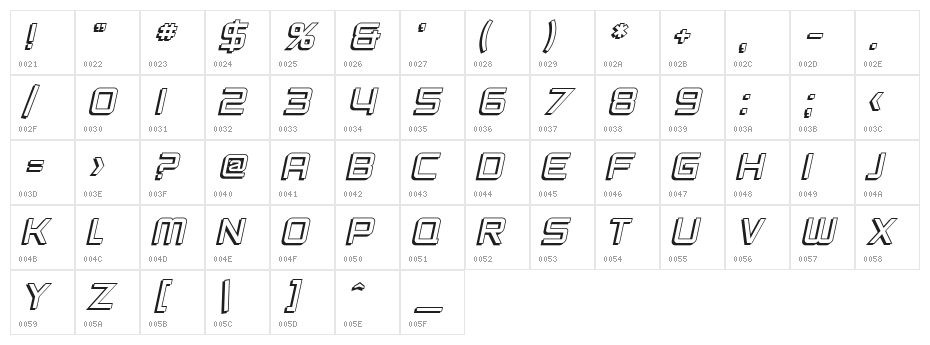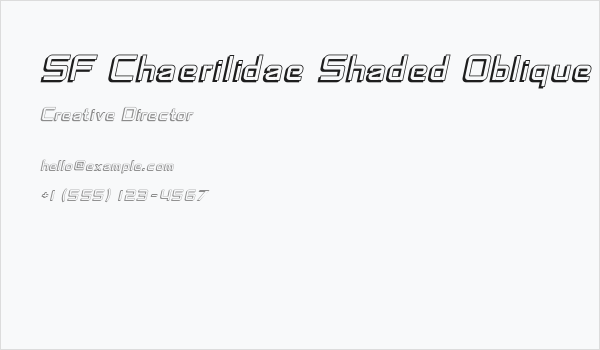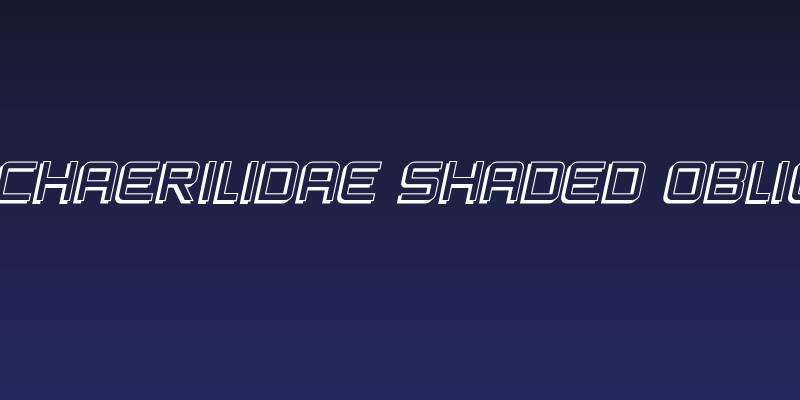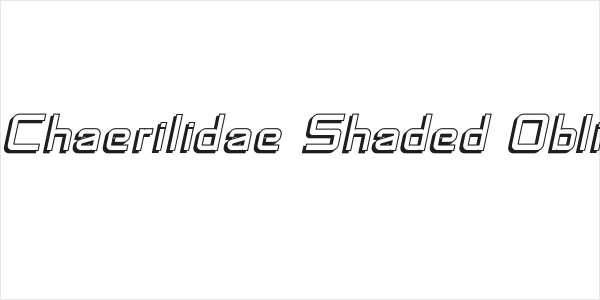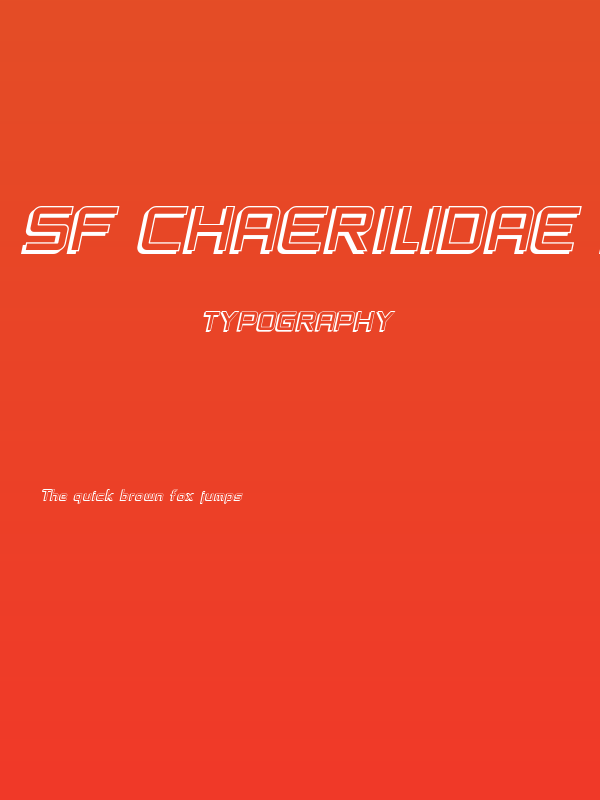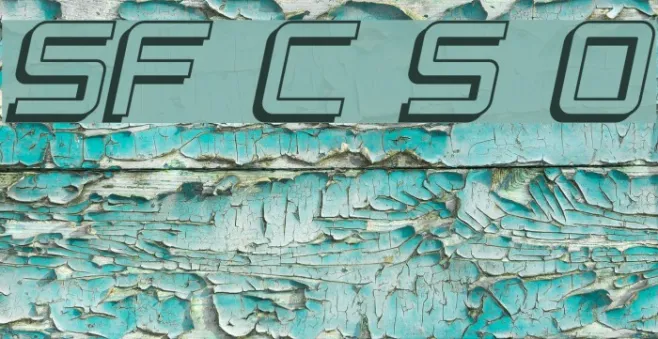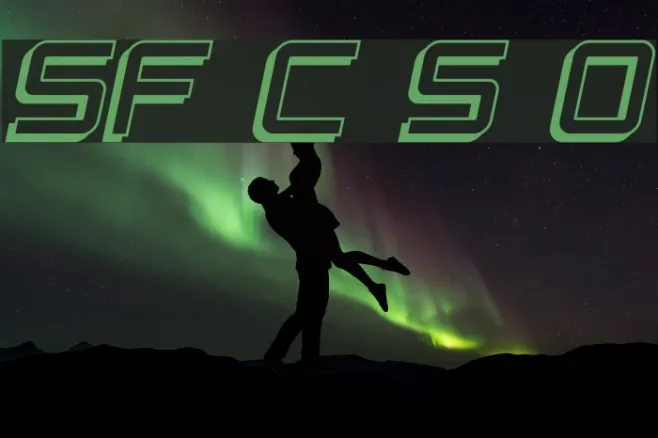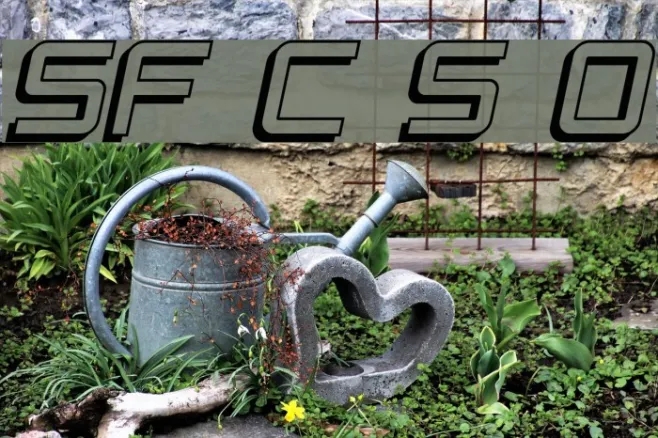
SF Chaerilidae Shaded Oblique Font
SF Chaerilidae Shaded Oblique Description
This font features a bold, geometric design with a distinct oblique slant, giving it a dynamic and modern appearance. The characters are outlined with a shaded effect, adding depth and a three-dimensional look. The uppercase and lowercase letters maintain a consistent style, with sharp angles and clean lines. The numerals and special characters follow the same aesthetic, ensuring uniformity across all elements. This font is ideal for projects that require a futuristic or tech-inspired feel, making it suitable for branding, posters, and digital media.
| Proposed Projects | Ideal for tech branding, futuristic posters, digital media, and video game graphics. |